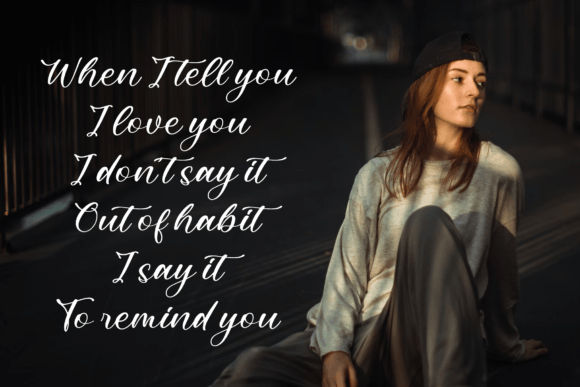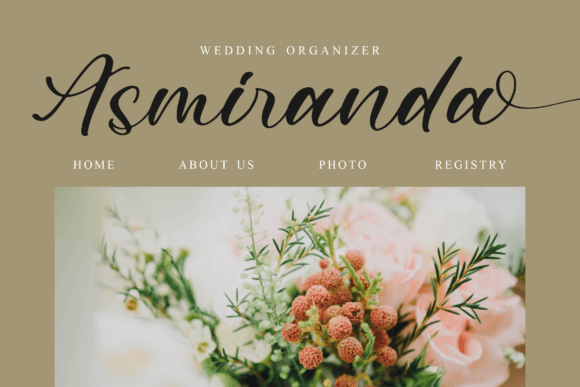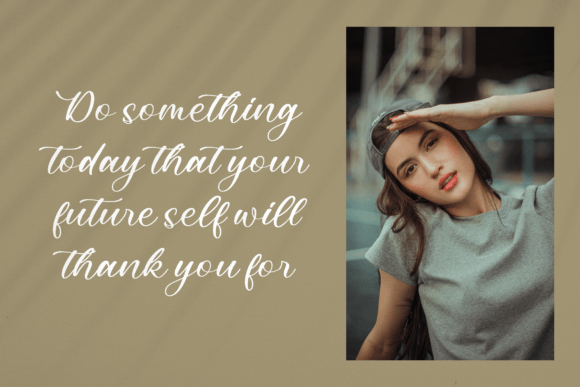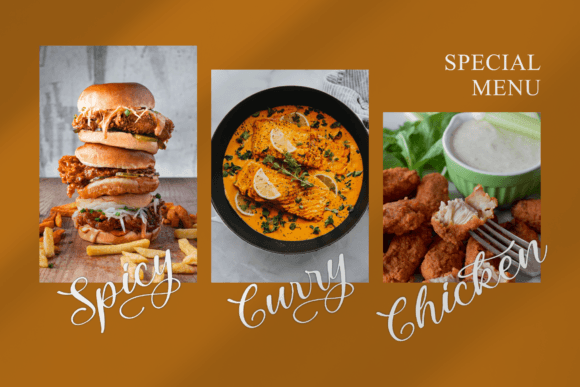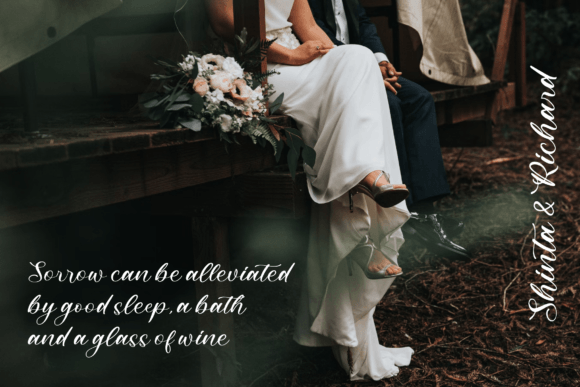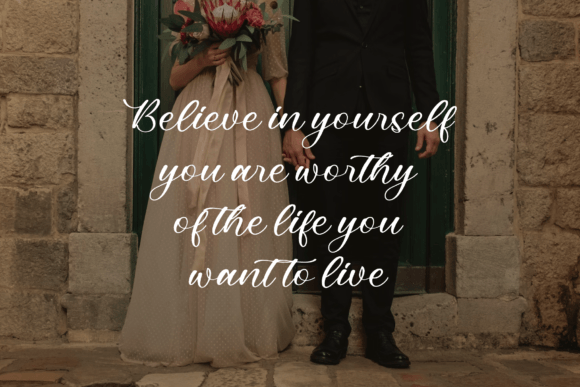
Introduction to Mybellin Beautya Font
Mybellin Beautya is a dazzling script font.
| 👤 Author | Letterfabric |
This font is neatly crafted and highly detailed Whatever the topic, this font will be a wonderful asset to your font library, as it has the potential to enhance any creation.
Key Features of Mybellin Beautya Font
Why Choose Mybellin Beautya Font?
Mybellin Beautya Font offers exceptional quality and versatility, making it a valuable addition to your design toolkit. Whether you’re creating for personal projects or commercial use, Mybellin Beautya Font delivers professional results.